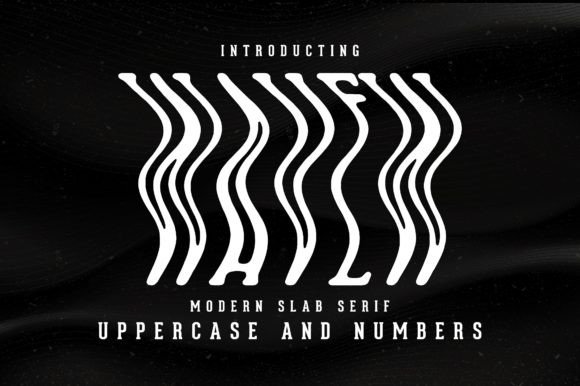
Introducing Wavew Font - The Epitome of Elegance and Revolution in Typography!
Are you tired of the same old boring fonts that fail to make your creations stand out? Look no further! Wavew Font, created by the renowned Minimalistartstudio, is here to transform your designs into masterpieces.
With its captivating slab serif style, Wavew Font is the perfect choice for modern resumes that demand attention. This font family is specifically tailored to meet the needs of professionals who strive for excellence in their presentation.
Why settle for mediocrity when you can make a lasting impression? Wavew Font adds a touch of sophistication and elegance to your creations, instantly elevating your resume among the competition. Its uppercase design exudes confidence, making a bold statement that will be hard to ignore.
But Wavew Font is not just about aesthetics. It is carefully crafted to ensure readability, making it an ideal choice for titles and headings. Your content will not only look visually appealing but will also convey information effectively.
Let your creativity flow with Wavew Font! Its minimal yet revolutionary aspect opens up endless possibilities for your designs. Whether you're working on a personal project or representing a brand, this font will effortlessly convey your message with style and clarity.
Stand out from the crowd and leave a lasting impression on potential employers or clients. Wavew Font is your secret weapon to creating a resume that demands attention and showcases your professionalism.
Remember, first impressions matter. Make yours unforgettable with Wavew Font - the best font for modern resumes.